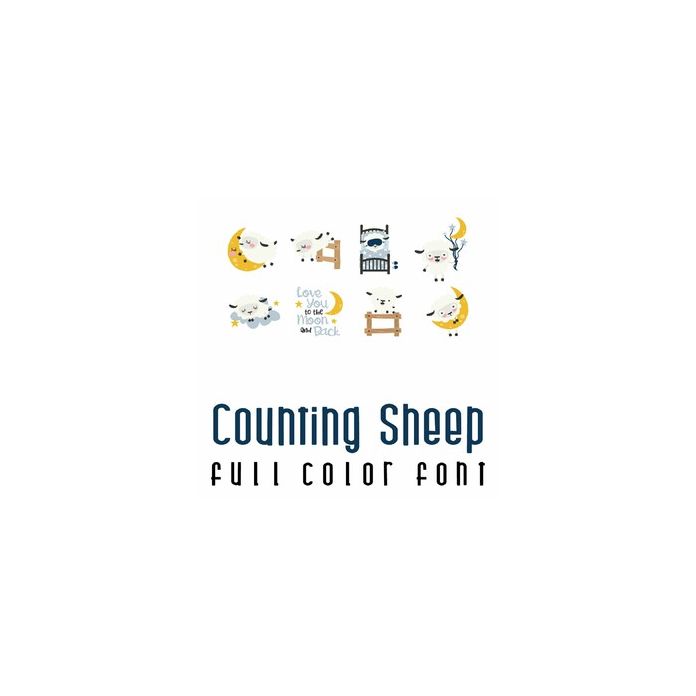
This adorable full-color doodlebat font features 26 adorable bedtime sheep. Perfect for cards, crafts, gifts, decor, scrapbook pages, planner stickers, and more!